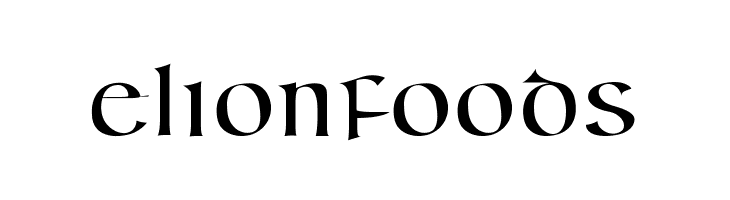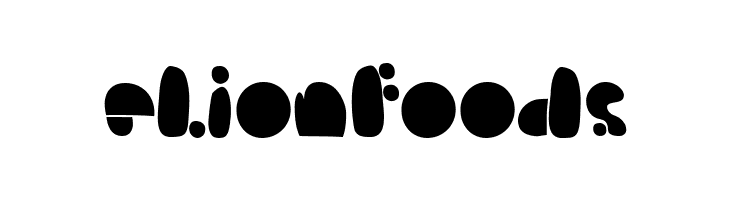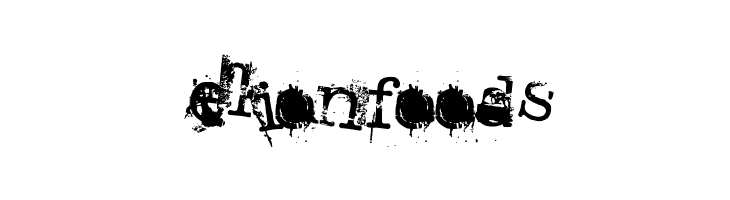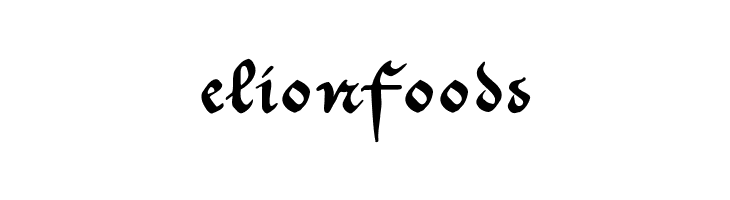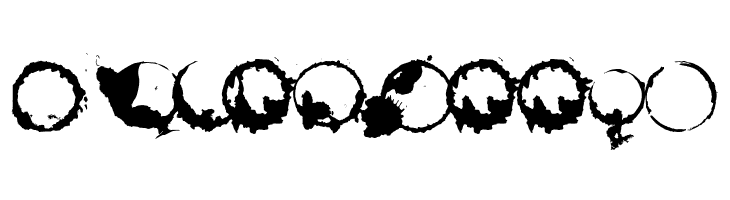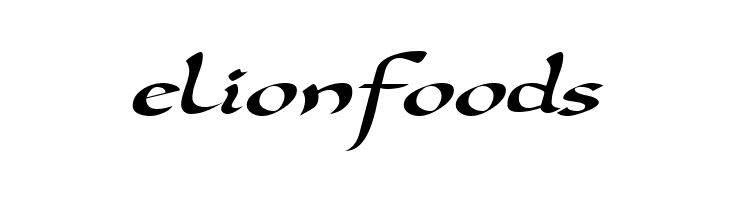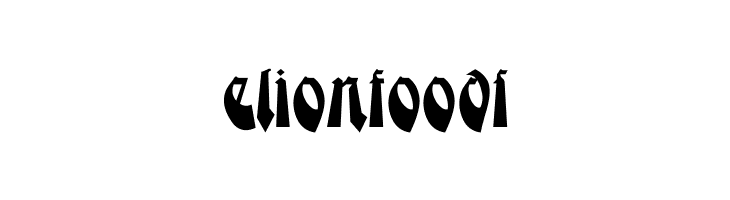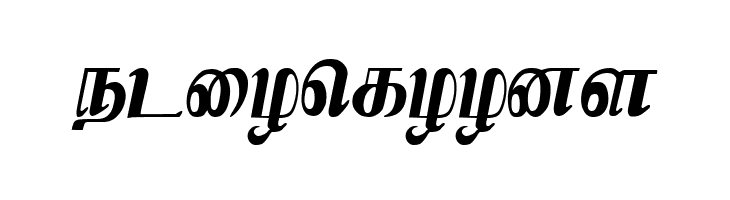
A classic, calligraphic serif font with high contrast and elegant serifs.
A bold, playful font with high contrast and rounded shapes, perfect for decorative use.
A distressed, grunge-style font with a rough, textured appearance.
A classic Blackletter font with ornate, angular strokes and high contrast.
A bold, gothic-inspired font with high contrast and intricate details.
A sleek, elegant italic font with high contrast and elongated characters.